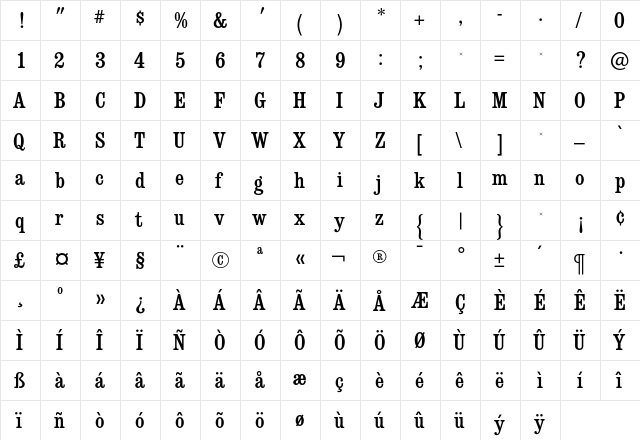
ConsortRR Regular
Design Context for ConsortRR Typeface
ConsortRR takes a measured approach to typography — its balanced proportions and neutral character make it a reliable workhorse for both digital and print work.